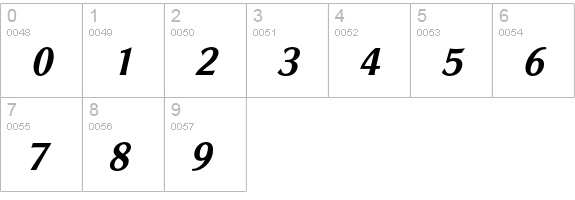
SouvenirGothic-MediumItalic Font Details
Introducing SouvenirGothic-MediumItalic, a stunning and captivating font that effortlessly combines elegance with a touch of mystery. This font exudes a unique charm, making it the perfect choice for any project that requires a touch of sophistication. SouvenirGothic-MediumItalic stands out with its distinctive italicized style, which adds a sense of fluidity and grace to any text. Its beautifully curved letters flow seamlessly, creating a truly mesmerizing visual experience. This font is perfect for creating eye-catching headlines, stylish logos, and refined branding materials. What sets SouvenirGothic-MediumItalic apart is not only its impeccable design, but also its availability as a free download at FontsMarket.com. Yes, that's right - this remarkable font can be yours without spending a single penny. The creators of SouvenirGothic-MediumItalic understand the importance of accessibility, ensuring that everyone has the opportunity to enhance their creative projects with this exceptional typeface. With its generous x-height and balanced proportions, SouvenirGothic-MediumItalic offers excellent readability both in print and on screens. Whether you're designing a magazine spread, a website, or even a wedding invitation, this font will effortlessly elevate your design to new heights. Incorporating SouvenirGothic-MediumItalic into your work is a breeze, thanks to its extensive character set that includes uppercase and lowercase letters, numerals, punctuation marks, and an array of special characters. This font truly has everything you need to add a touch of elegance and sophistication to your designs. Don't miss out on the opportunity to enhance your creative endeavors with SouvenirGothic-MediumItalic. Download this exceptional font for free at FontsMarket.com and let your imagination run wild. Unleash its captivating allure and watch as your designs come to life with a touch of refined beauty.